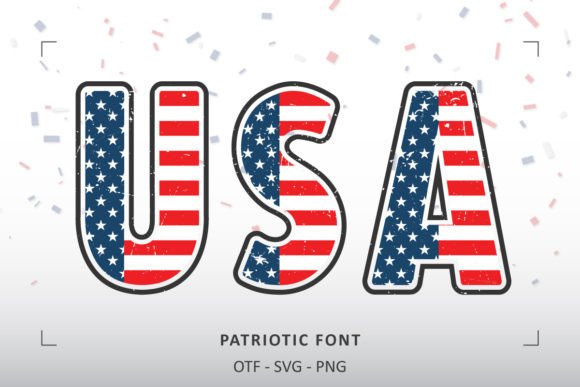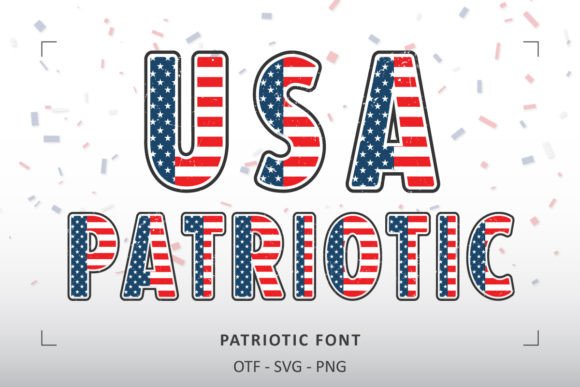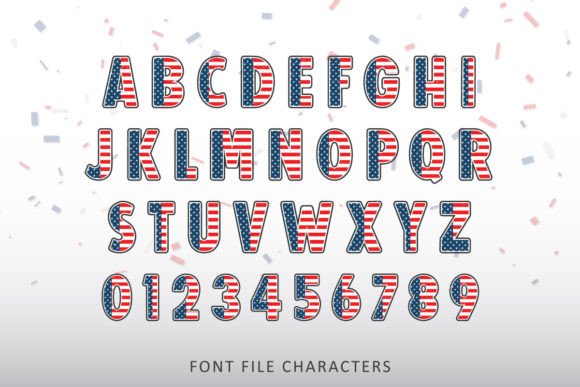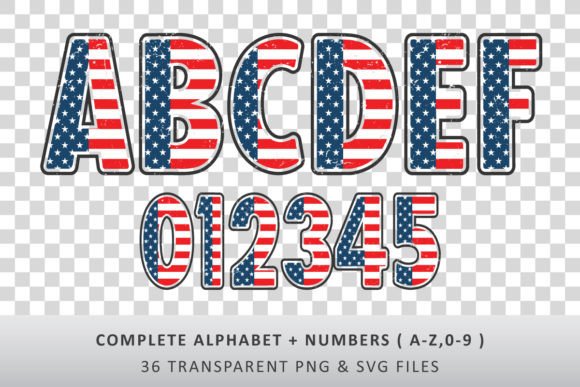
Patriotic Font
About the Patriotic Font
From logos to headlines, the Patriotic Font is the perfect choice for making a lasting impression. Introducing “Patriotic Font” – a United States of America flag font style it’s the perfect font for Memorial Day-themed or 4th of July-themed projects. It works great for creating cool designs that scream for attention. It’s ideal for anything ranging from t-shirts, book designs, restaurant menus, blog writing, and greeting cards to stickers, or anything that needs a casual touch. Fall in love with its incredibly cool style, and use it to create lovely designs!
Patriotic Font’s bold, slightly playful style makes it ideal for headlines, posters, and short-form content such as social media graphics or logos. Its strong visual impact, however, makes it less suitable for body text or long-form reading. Avoid using it for UI elements or situations requiring high readability.
This font pairs well with clean sans-serif fonts like Open Sans for a balanced contrast, or a more traditional serif like Garamond for a sophisticated, vintage feel. For a more modern aesthetic, consider pairing it with a geometric sans-serif such as Futura. Avoid pairing it with other highly decorative or script fonts, which might create visual overload.
Its overall personality is best described as celebratory and attention-grabbing, making it a great choice for brands focusing on Americana, patriotism, or celebratory events. Consider its use for projects conveying a sense of freedom, community, or national pride.